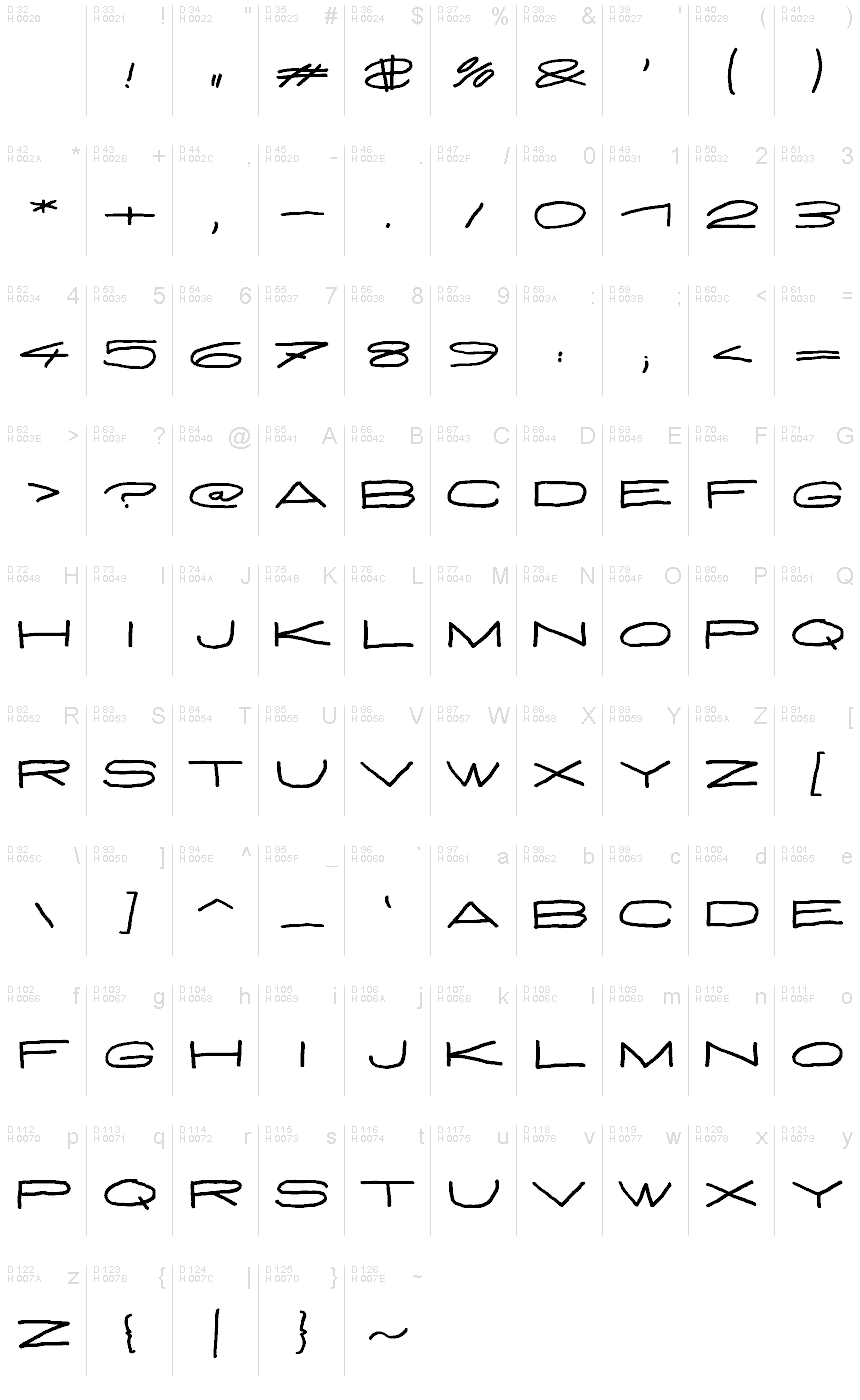
HyperWeshYoo
Hyper Wesh Yoo font by Bisou is a free handwritten font with edgy geometric influences and a modern aesthetic. It maintains a futuristic look derived from its expanded width—a quality that makes the graphic novel appeal unmistakable. The font finds its way across several platforms, especially in contemporary applications related to tech branding or sci-fi media.
This typeface’s free resource status makes it available to anyone after a distinct visual boost in documentaries about unrepresentable futures, digital patterns and posters, overnight exhibition posters, library outreach graphics, music tour promotional materials as well as art culture merchandise designs related to artist retrospectives and even history dramatization documentaries.